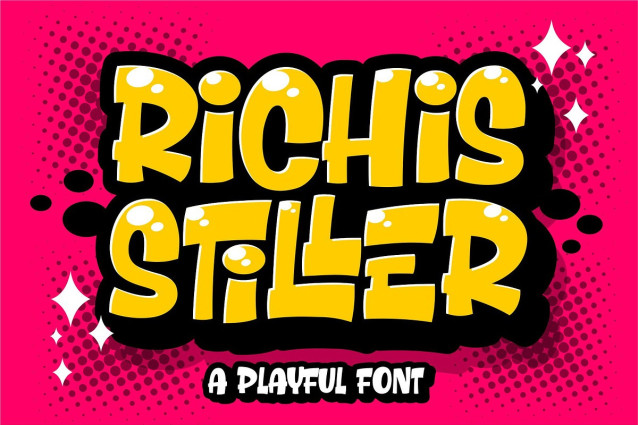
Richis Stiller Font
Richis Stiller Font, this font has a playful nuance so it looks more cheerful and friendly. Fonts that have a slightly irregular shape to display a unique impression on the character of the font. And it is very suitable for use as book titles, product names, packaging, posters and so on.